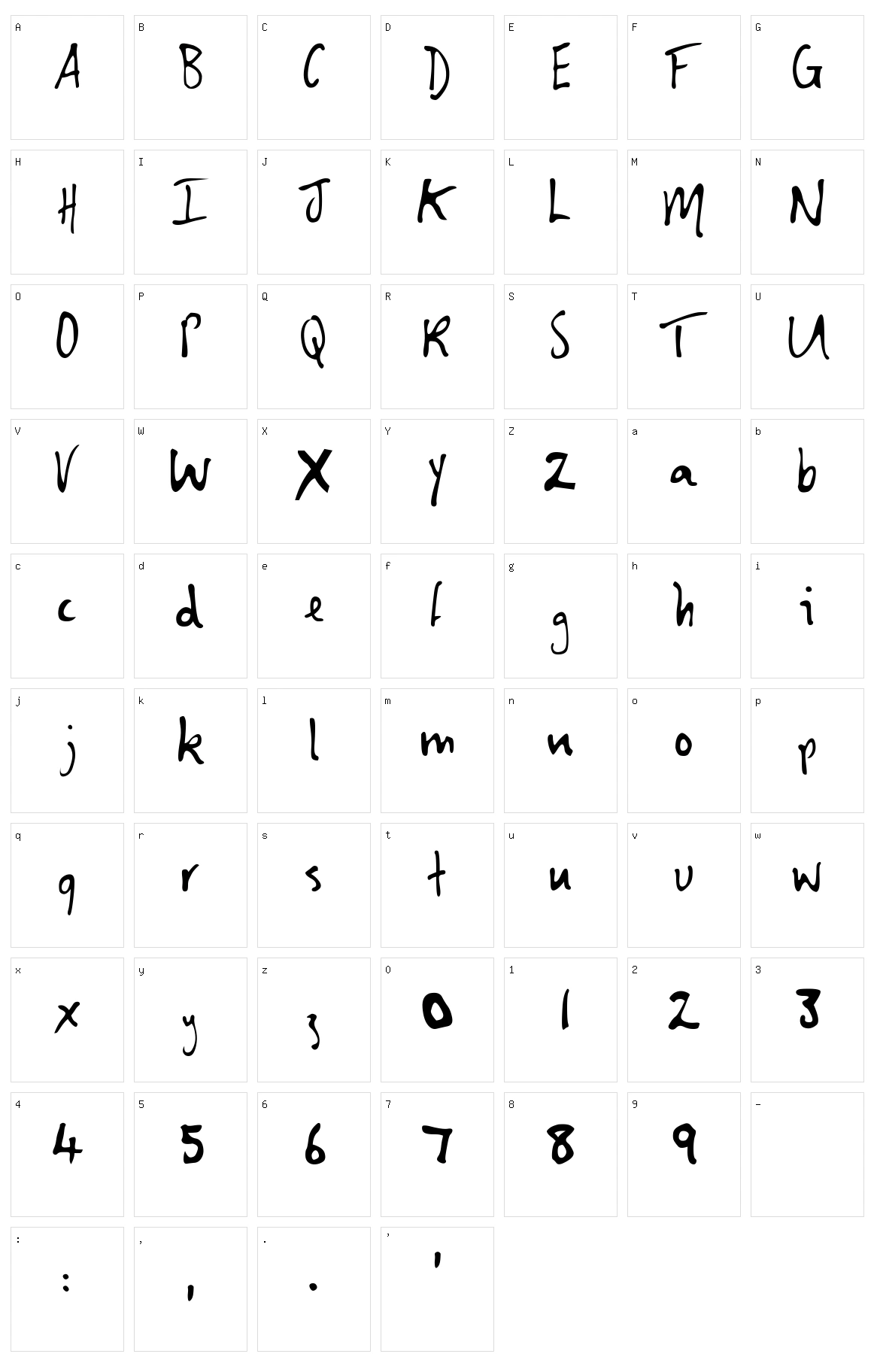
The free font Shirley is carefully designed by Clyde, showcasing a thoughtful balance of creativity and usability and falls under the Script font style. When you download the ZIP file, it contains only 6.07 KB of font files, making it lightweight and quick to download. Please review the license details below to understand permitted usage and distribution rights. If license information is not available, we recommend using this font for personal projects only or contacting the author directly for commercial usage permissions.